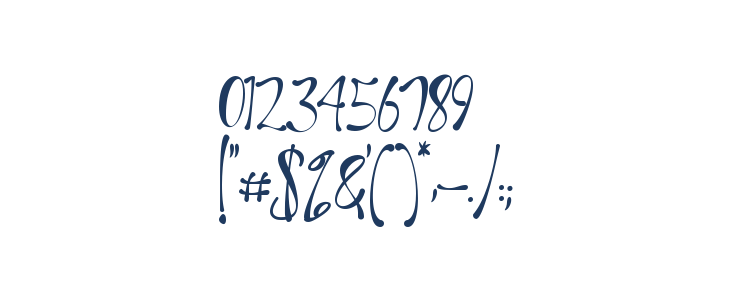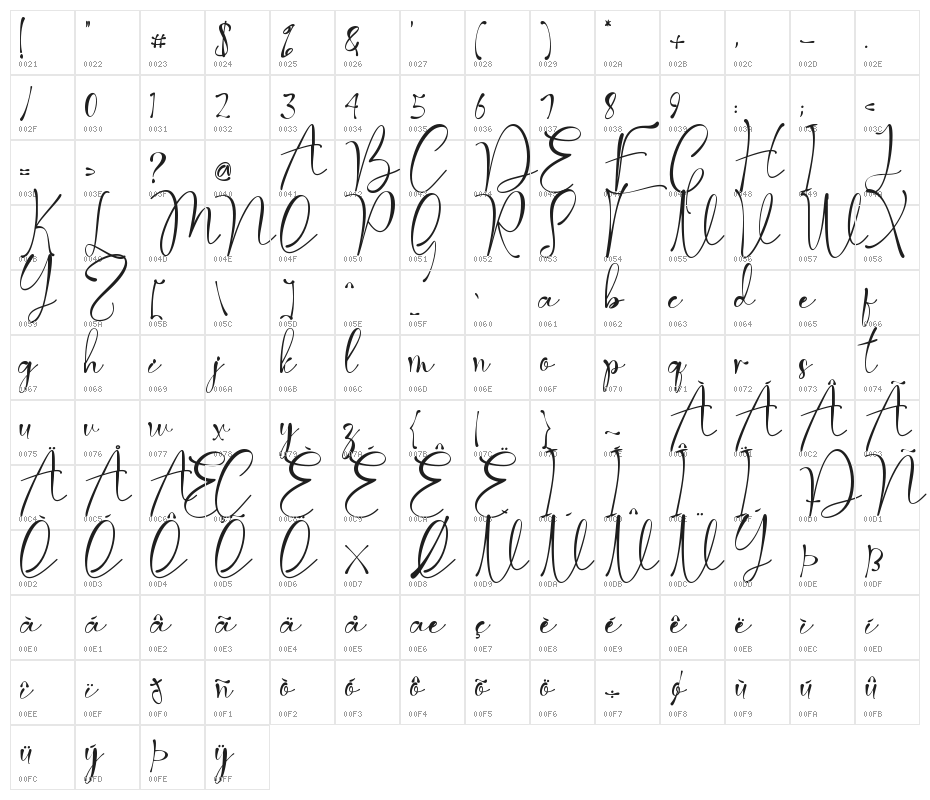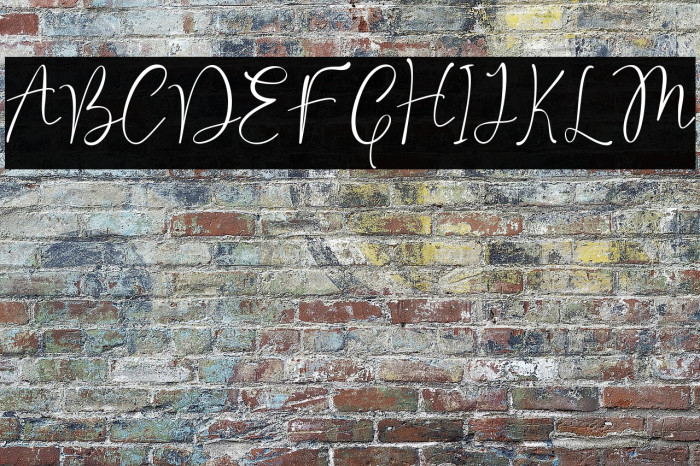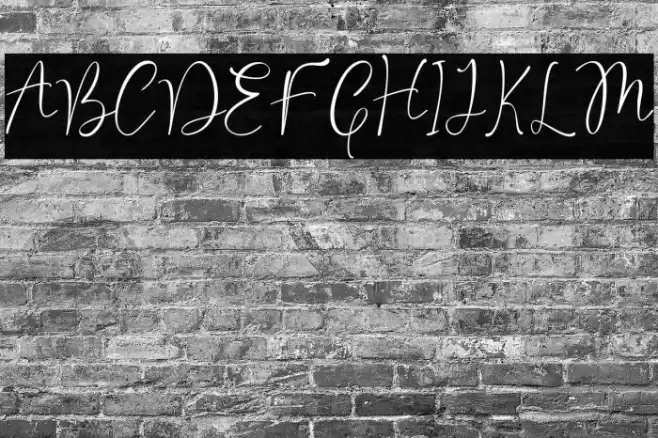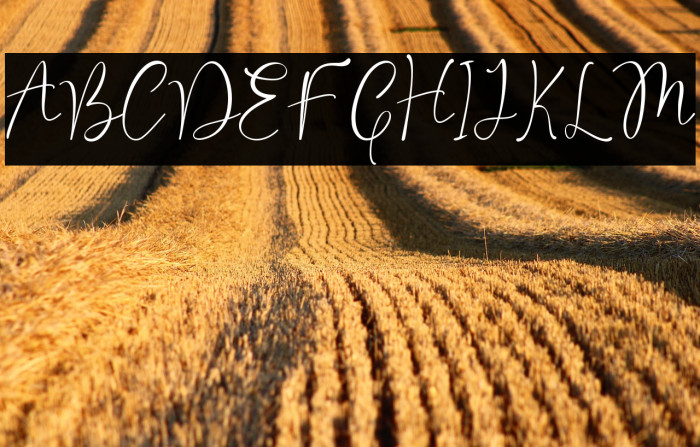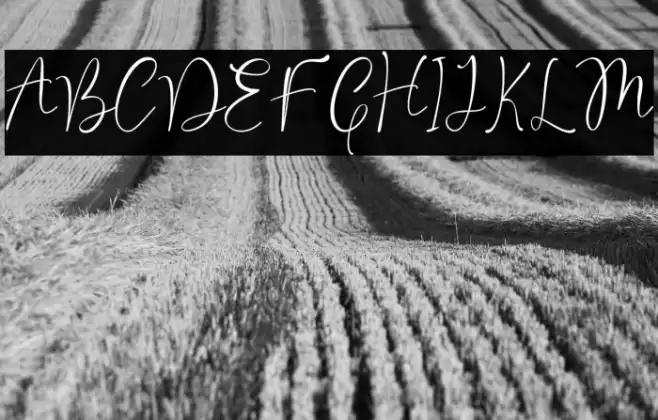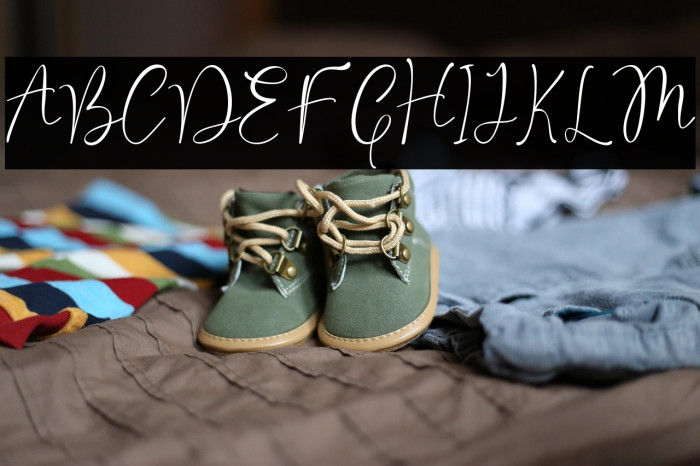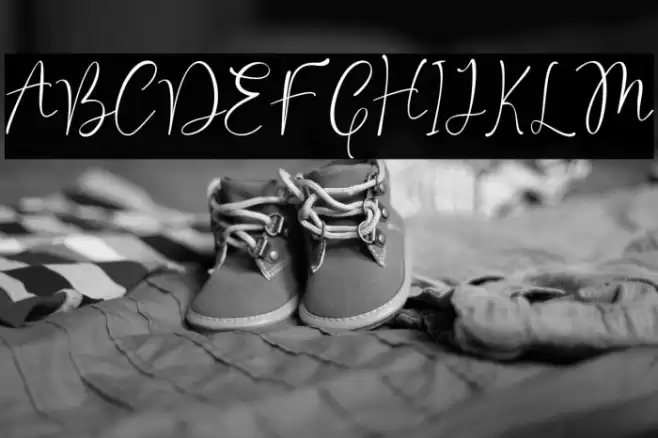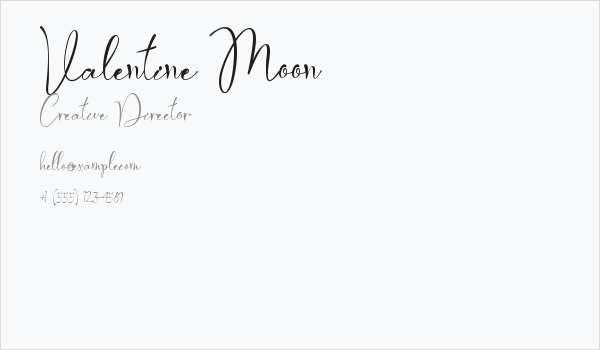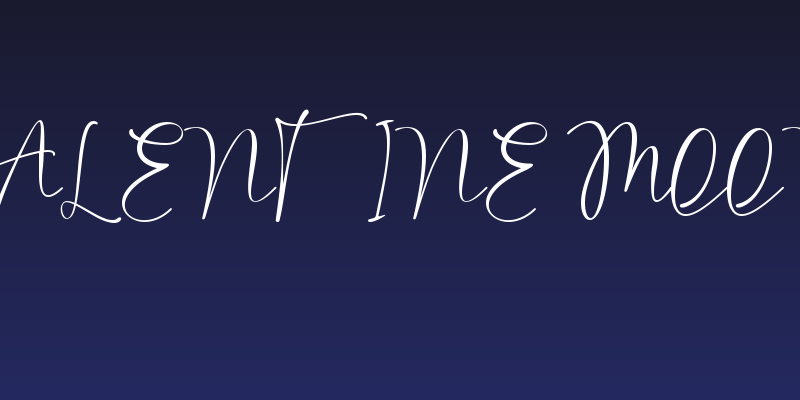
Valentine Moon Font
Valentine Moon Description
This font features a whimsical and elegant script style, characterized by its flowing, interconnected letters and graceful curves. The uppercase letters are tall and slender, with a slight slant that adds a sense of movement and fluidity. The lowercase letters are more compact, maintaining the same elegant curves and connections. The numerals are consistent with the overall style, with a playful yet sophisticated appearance. Special characters are designed to match the flowing nature of the letters, ensuring a cohesive look across all text. This font exudes a romantic and artistic vibe, making it ideal for creative and expressive projects.
| Overall Style | Romantic |
| Use Case | Headlines, Invitations, Artistic projects |
| Proposed Projects | Ideal for wedding invitations, greeting cards, branding, and artistic projects. |